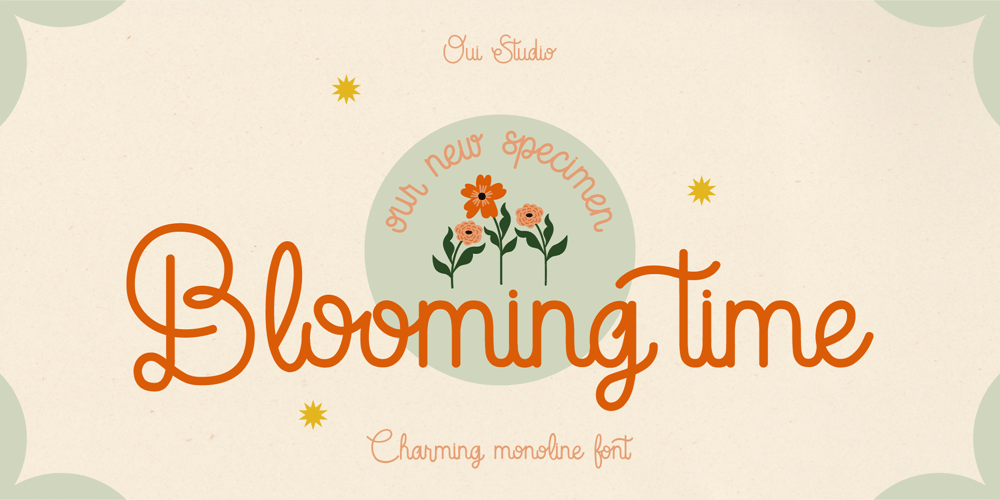
Blooming Time Font Family was designed by Ica Riza and published by Oui Studio. Blooming Time contains 1 styles and family package options. Hello friends! ‘Blooming Time’ font is coming; a charming monoline script font. Blooming time is perfect for wedding invitations, brands, fashion, print stuff, quotes, titles, or your work that wants to show the side of beauty.Blooming Time font has many ligatures that will make the sentence more beautiful.